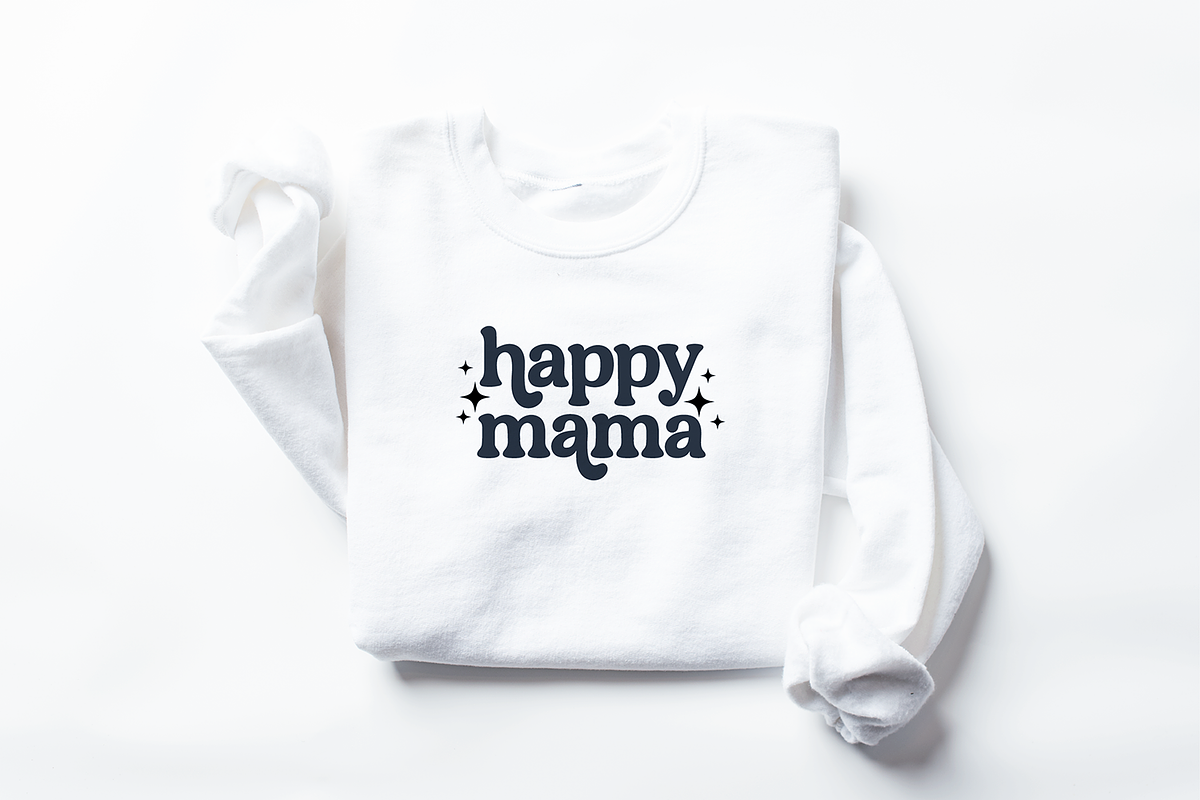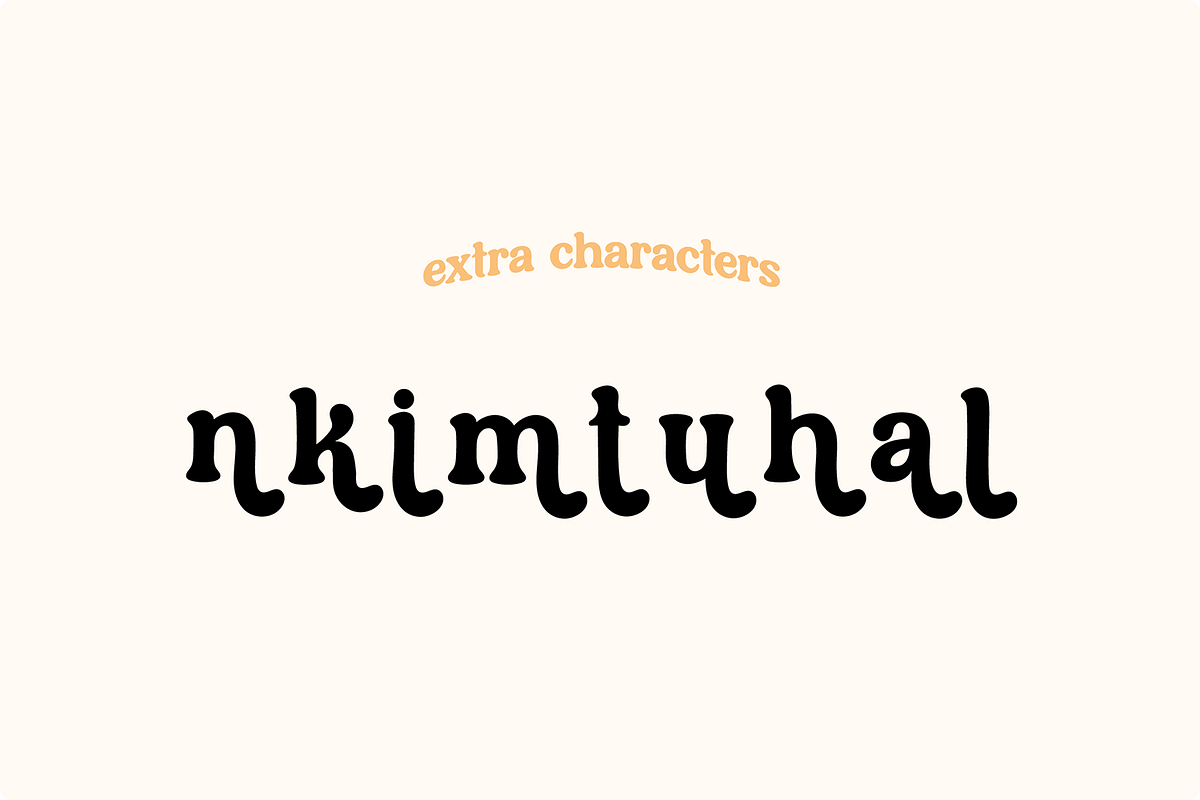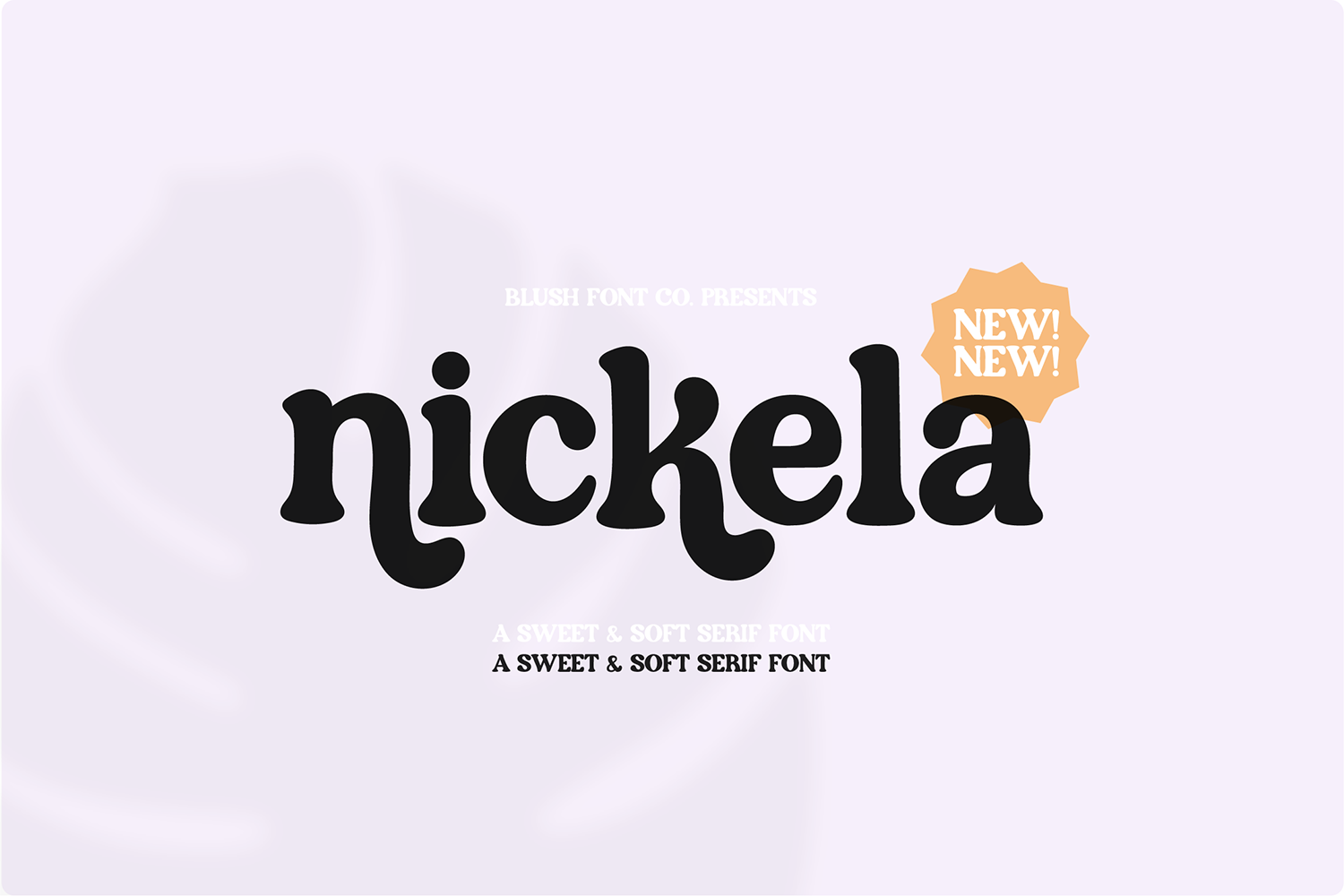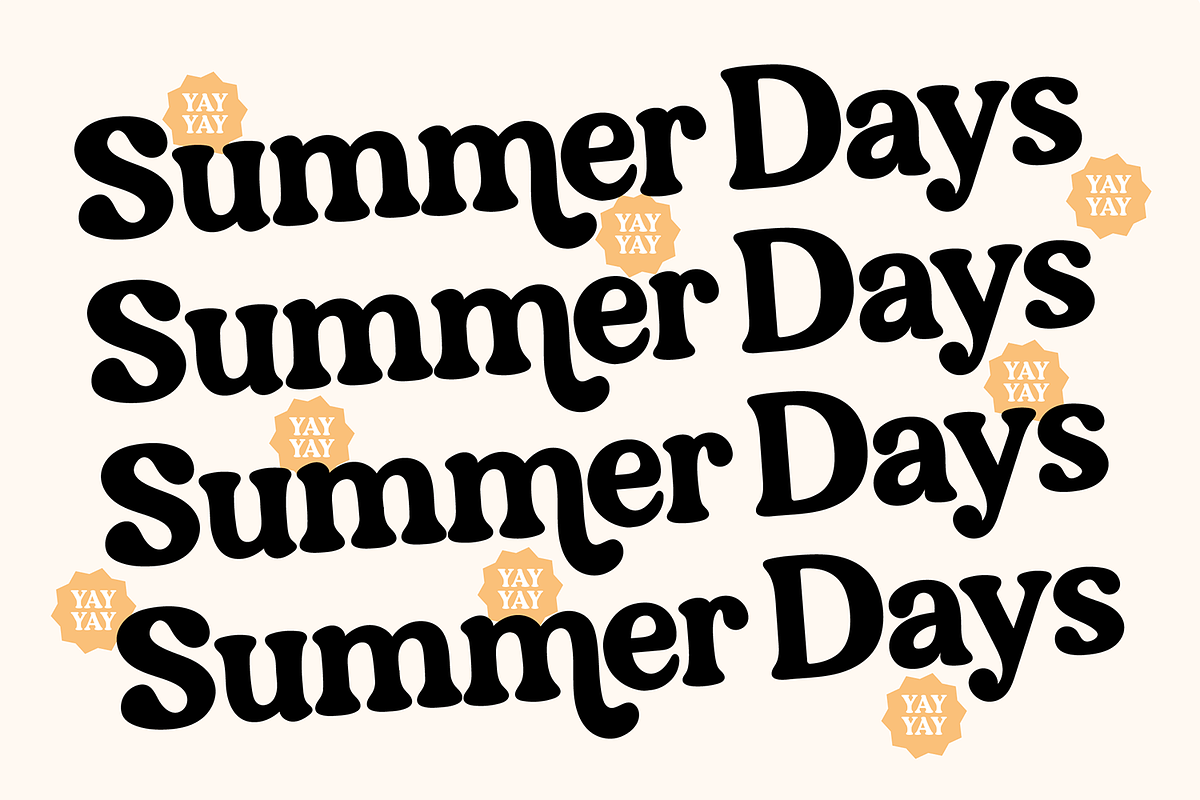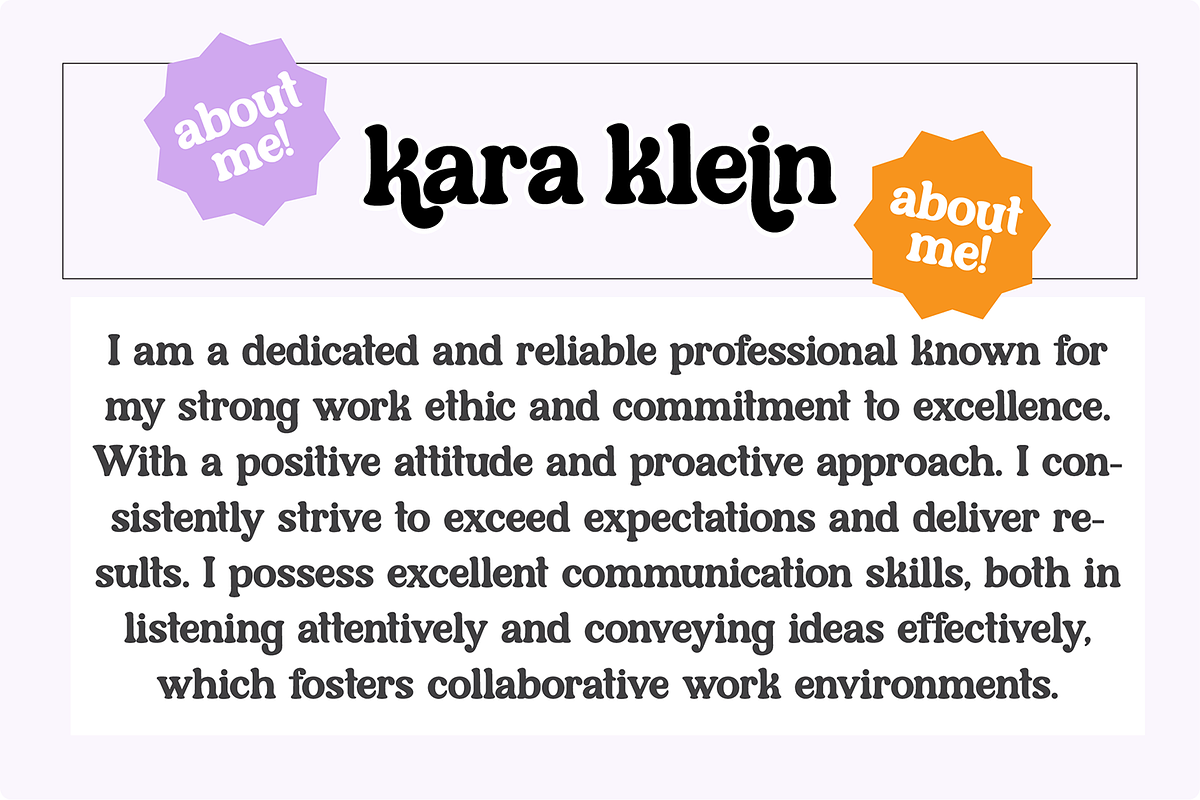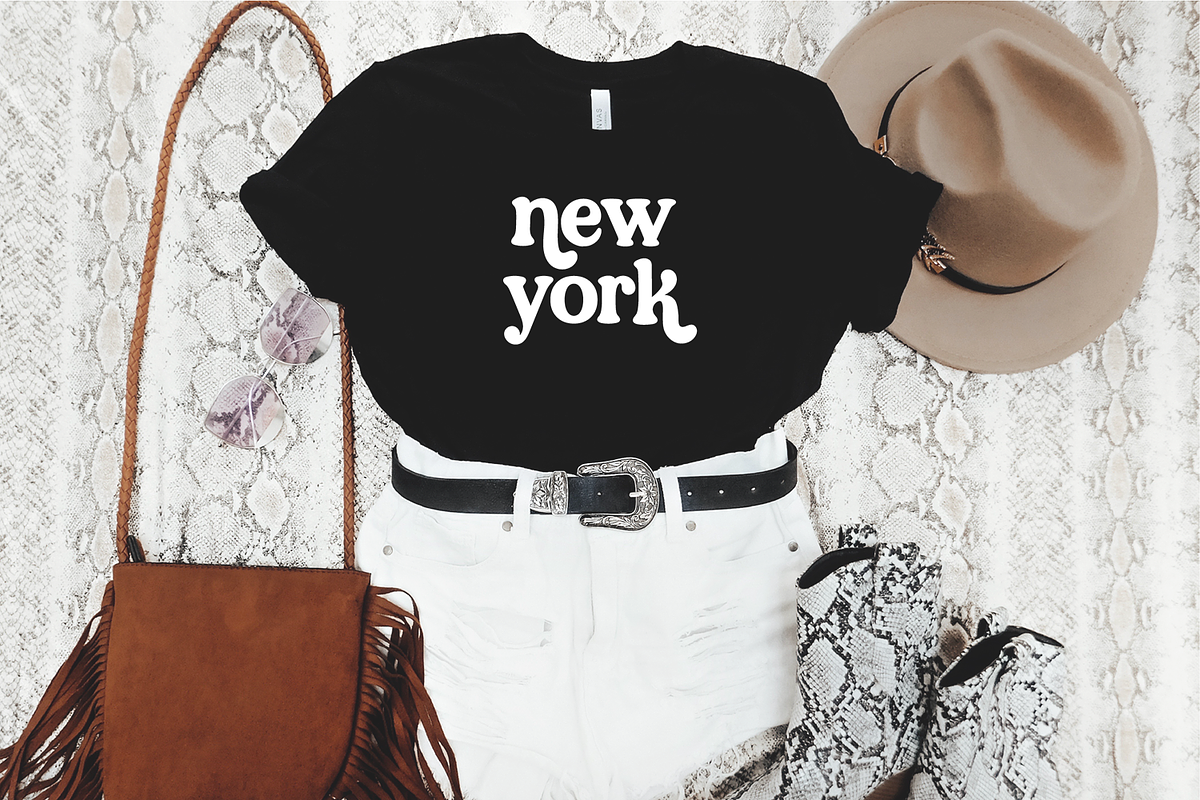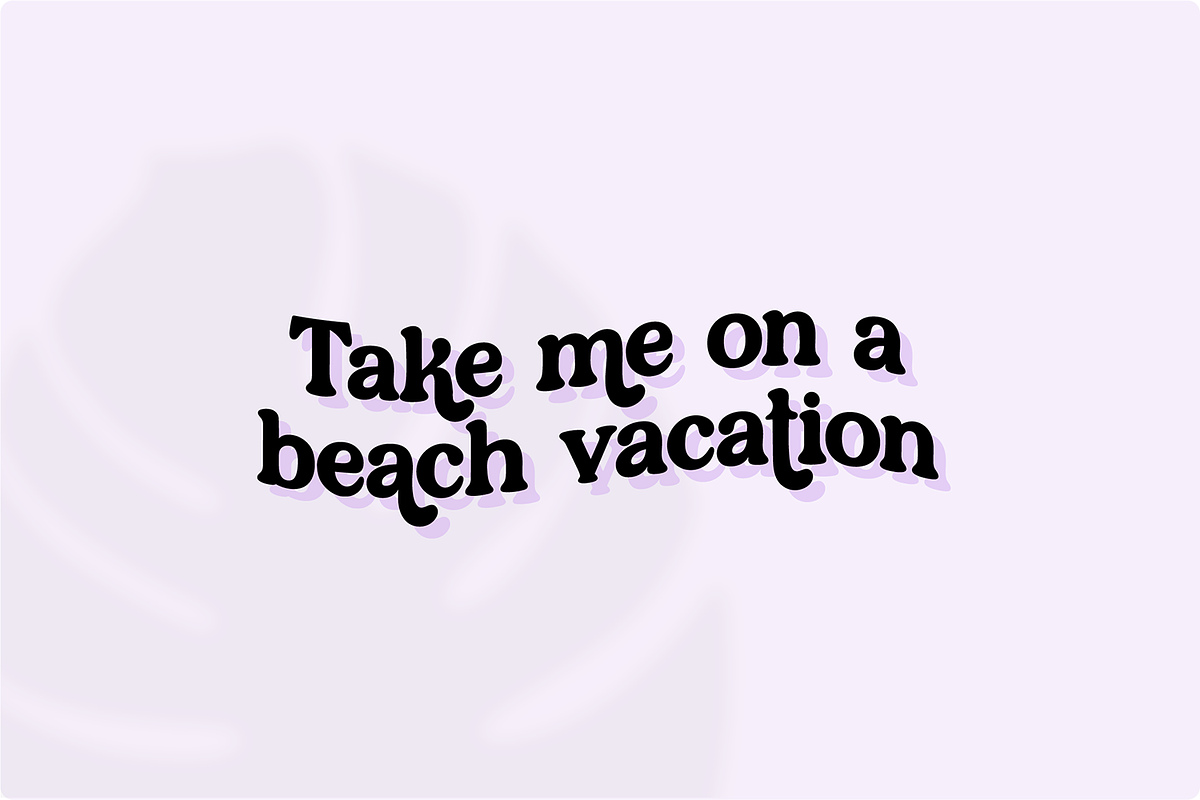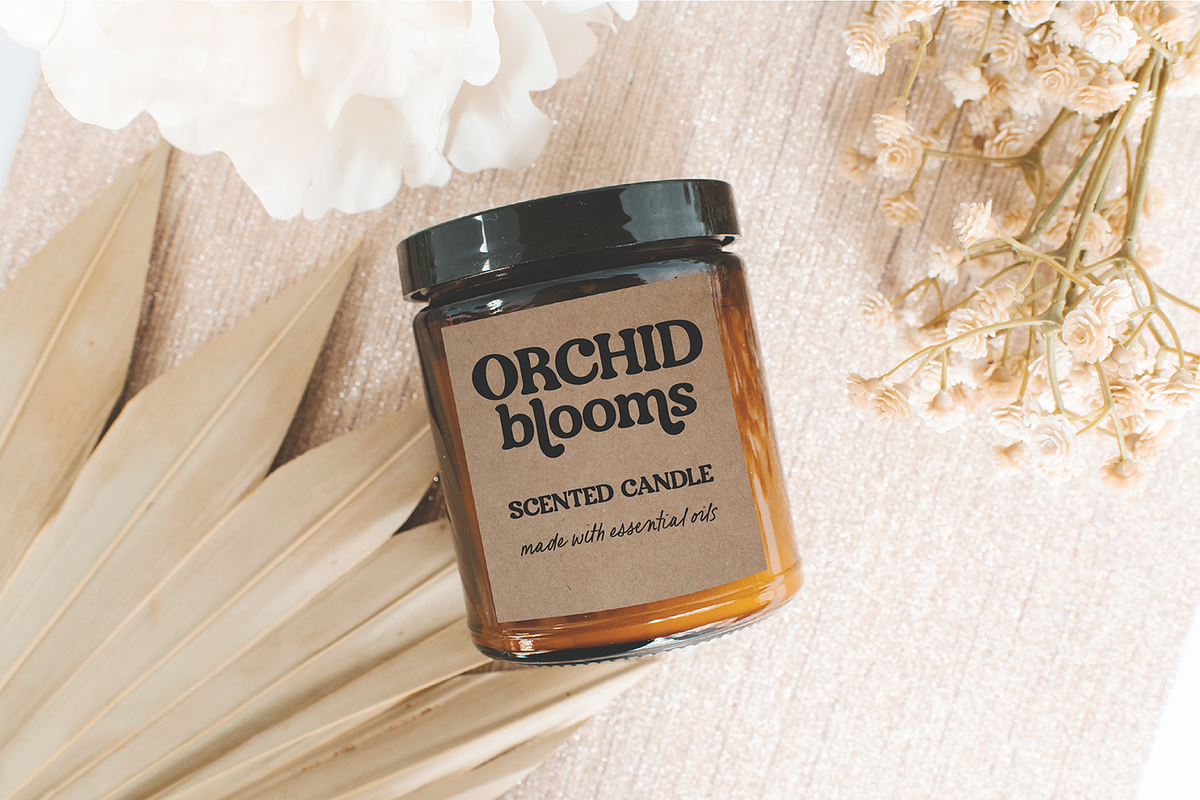
NICKELA Soft Serif Modern Font
"Nickela" a soft modern stylish display font.
This font is a rounded trendy modern serif font that is perfect for social media or crafty projects. Use it for branding, crafts for decor, invitations, and more! Upper and lowercase glyphs, numbers, intl characters, punctuation marks, and extra swooped characters.